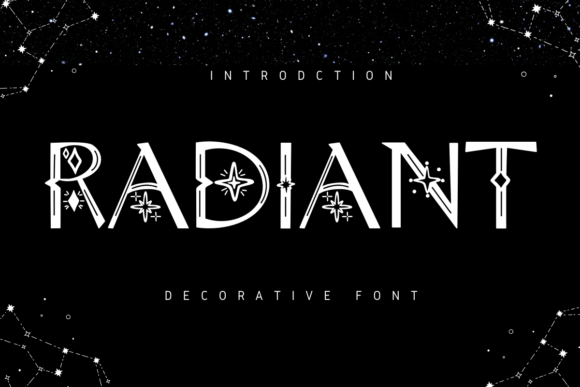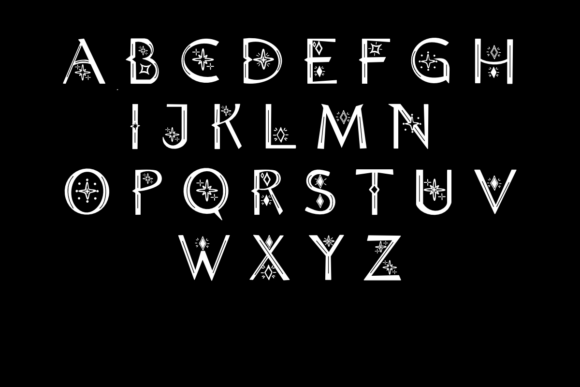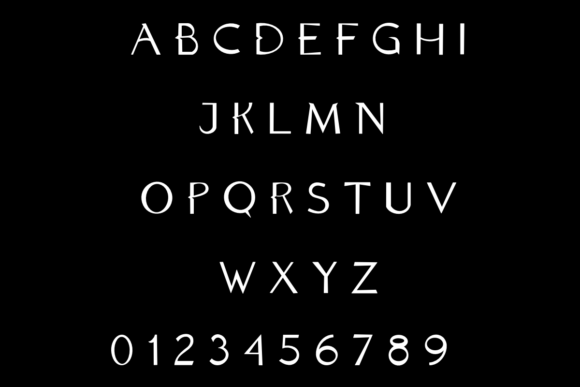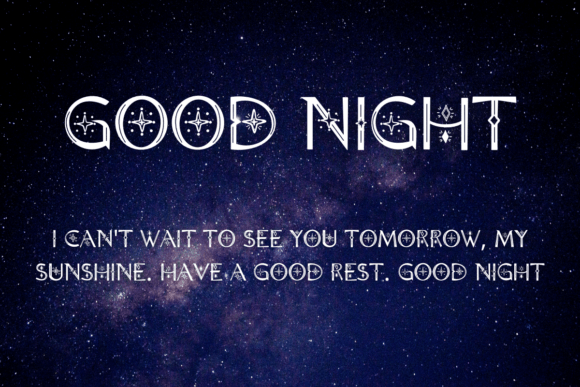
Radiant Font
About the Radiant Font
We are excited to introduce Radiant Font, a must-have typeface for any serious designer. Radiant is a Decorative font. You can use it for taking notes, writing a diary, or making greeting cards. However, you can still use it for other designs, such as banners, content, mugs, cards, shirts, stationery, social media posts, and more!
Radiant’s decorative nature makes it ideal for headlines, short text blocks on posters or packaging, and branding elements requiring a touch of flair. It excels in applications where visual impact is paramount, such as logos, short slogans, and social media graphics. However, its ornate details make it unsuitable for body text or UI elements where readability is critical. Extended use would strain the eye.
Its personality is best described as playful yet elegant. This makes it a good fit for brands focused on creativity, femininity, or a touch of vintage charm.
Consider pairing Radiant with a clean sans-serif like Montserrat for a modern contrast, or a classic serif such as Garamond for a more traditional feel. For a bolder statement, a geometric sans-serif like Futura could work well. Avoid pairing it with other highly decorative fonts, as this would create visual clutter.
Radiant Font Usage Examples
Radiant Font Example